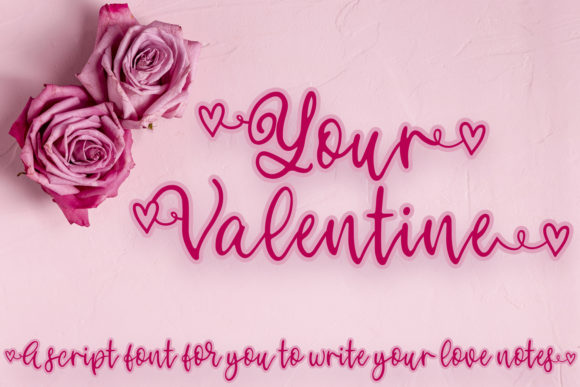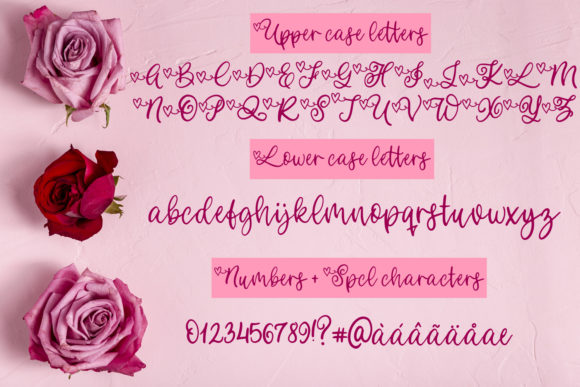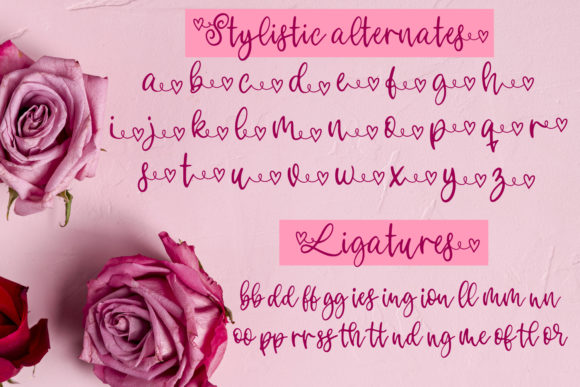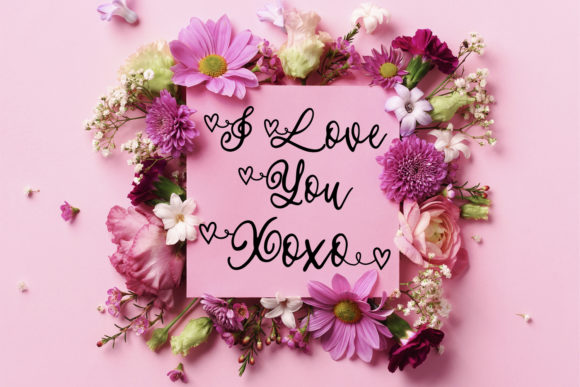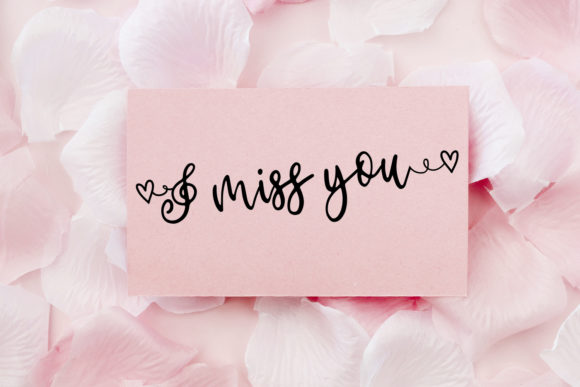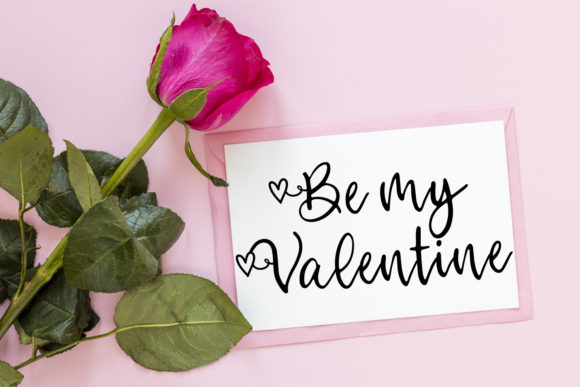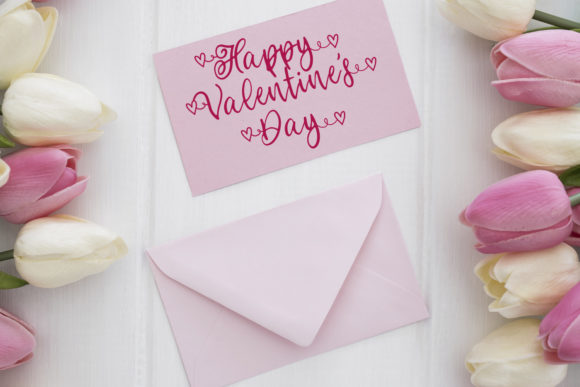
Your Valentine Font
About Your Valentine Font
Your Valentine is a script font perfect for your love notes and Valentine’s cards. It will add a romantic touch to any project!